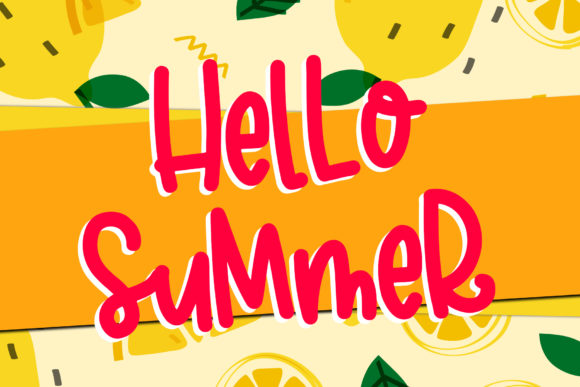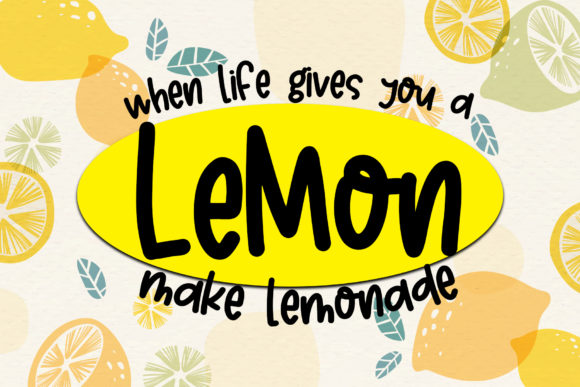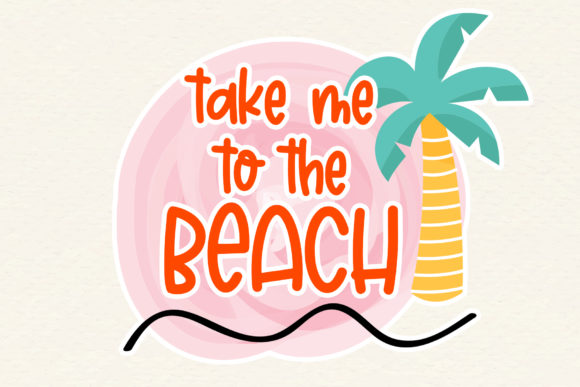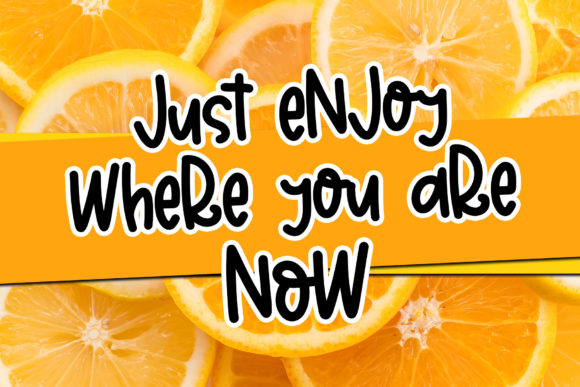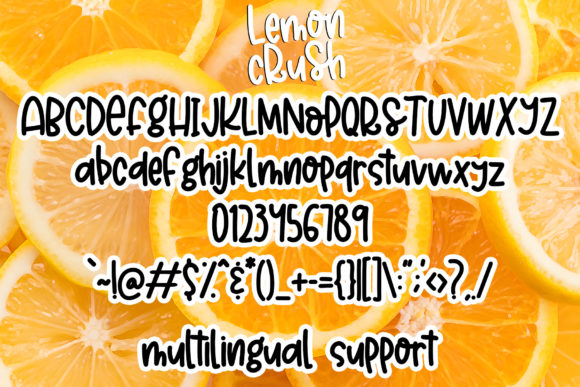
Introduction to Lemon Crush Font
Have you ever been working on a creative project and suddenly, the perfect font pops up in your mind? That’s exactly what happened to me when I stumbled upon the Lemon Crush Font. Its bright, cheerful vibe instantly caught my attention, and I knew I had to share it with fellow designers and crafty enthusiasts.
As a go-to design resource, Lemon Crush Font is a high-quality, free download that’s perfect for all your logos, branding, social media, and DIY projects. Its clean and quirky design makes it stand out from the crowd, while its transparent background allows for seamless integration into any design. Whether you’re working on a personal project or a client’s branding, Lemon Crush Font is a valuable addition to your design toolkit.
Key Features of Lemon Crush Font
- High-quality design resource ideal for creative projects, offering a unique and stylish touch.
- Transparent background, making it easy to use with any design or image.
- Includes multiple font styles and weights, providing flexibility for your design needs.
- Designed with a high level of detail and precision, ensuring a professional and polished look.
- Perfect for designers, artists, and anyone looking for a distinctive and eye-catching font for their creative project.
Honest Review: Lemon Crush Font
As a designer, I’m always on the lookout for high-quality design resources that can elevate my creative projects. Recently, I had the chance to try out the Lemon Crush Font, and I’m excited to share my honest review with you.
What works well: ✨ I was impressed by the font’s playful and modern feel, making it perfect for creative projects that need a touch of whimsy. The Lemon Crush Font also comes with a transparent background, which is super convenient for designing with images or videos behind the text.
What doesn’t work so well: ⚠️ While I love the font’s style, I found it a bit challenging to use for body text due to its unique shape and letterform. It’s best suited for headings, titles, or other design elements where you want to make a statement.
- Transparency for easy background design
Overall, I’m a fan of the Lemon Crush Font! With its unique style and transparent background, it’s a great addition to any designer’s toolkit. Just be mindful of its limitations, and you’ll be all set for some amazing creative projects.
Tips for Getting the Most Out of Lemon Crush Font
When using the Lemon Crush Font, be sure to pair it with a transparent background to make the most of its high-quality design. You can also use it in combination with other design elements to create a unique and eye-catching visual effect.
The Lemon Crush Font is perfect for creative projects, such as social media graphics, presentations, and marketing materials. It’s also great for personal projects, like blog posts and websites.